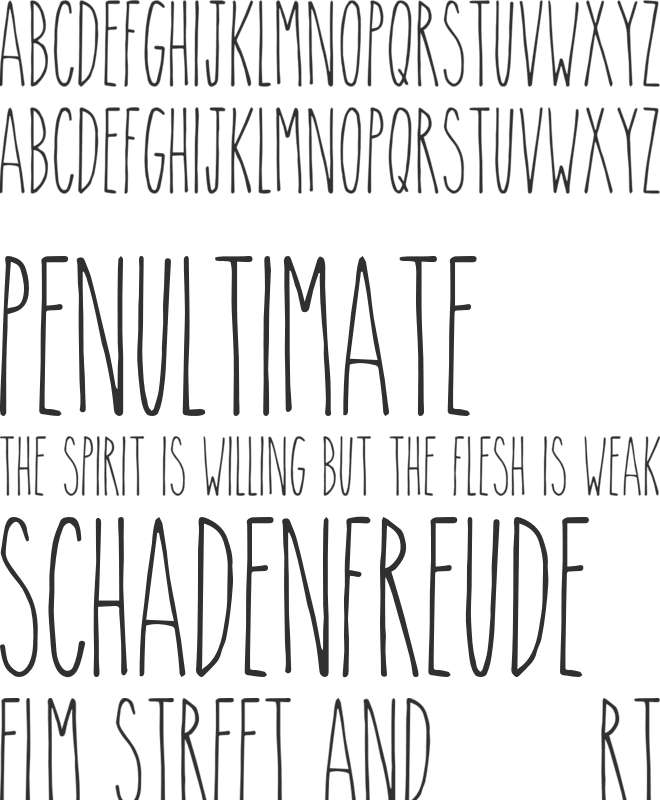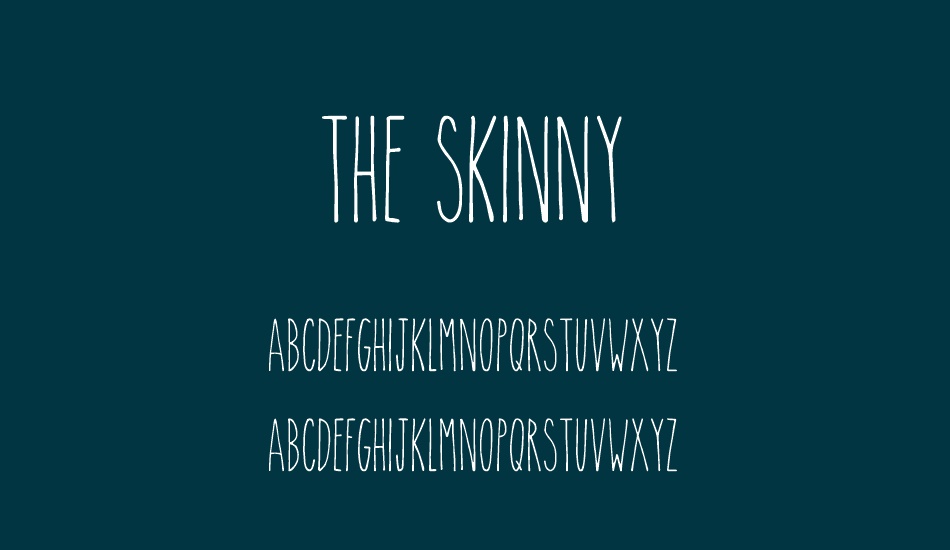
The Skinny Font
The Skinny Font - Otf, ttf & web font files included. The skinny is a sleek and simple handwritten font. Web the skinny by jusebox. This font will provide a casual. Otf, ttf & web font files included. Web the skinny font is a thin, tall, warm, and friendly handwriting typeface with a simple structure and low contrast.
This font will provide a casual. Web the skinny font is a thin, tall, warm, and friendly handwriting typeface with a simple structure and low contrast. Web the skinny is a sleek and simple handwritten font. Otf, ttf & web font files included. The skinny is a sleek and simple handwritten font. Web the skinny by jusebox.
Web the skinny is a sleek and simple handwritten font. Otf, ttf & web font files included. Web the skinny by jusebox. The skinny is a sleek and simple handwritten font. This font will provide a casual. Otf, ttf & web font files included. Web the skinny font is a thin, tall, warm, and friendly handwriting typeface with a simple structure and low contrast.
This font will provide a casual. Web the skinny font is a thin, tall, warm, and friendly handwriting typeface with a simple structure and low contrast. Web the skinny is a sleek and simple handwritten font. Otf, ttf & web font files included. Web the skinny by jusebox.
Otf, ttf & web font files included. Web the skinny font is a thin, tall, warm, and friendly handwriting typeface with a simple structure and low contrast. Web the skinny is a sleek and simple handwritten font. Web the skinny by jusebox. The skinny is a sleek and simple handwritten font.
Web the skinny is a sleek and simple handwritten font. This font will provide a casual. Otf, ttf & web font files included. Web the skinny by jusebox. Web the skinny font is a thin, tall, warm, and friendly handwriting typeface with a simple structure and low contrast.
Web the skinny font is a thin, tall, warm, and friendly handwriting typeface with a simple structure and low contrast. Web the skinny is a sleek and simple handwritten font. This font will provide a casual. Web the skinny by jusebox. The skinny is a sleek and simple handwritten font.
This font will provide a casual. Web the skinny font is a thin, tall, warm, and friendly handwriting typeface with a simple structure and low contrast. Otf, ttf & web font files included. Web the skinny by jusebox. Web the skinny is a sleek and simple handwritten font.
Web the skinny font is a thin, tall, warm, and friendly handwriting typeface with a simple structure and low contrast. Web the skinny by jusebox. Web the skinny is a sleek and simple handwritten font. The skinny is a sleek and simple handwritten font. Otf, ttf & web font files included.
Web the skinny by jusebox. The skinny is a sleek and simple handwritten font. Web the skinny is a sleek and simple handwritten font. Otf, ttf & web font files included. Otf, ttf & web font files included.
Otf, ttf & web font files included. Web the skinny is a sleek and simple handwritten font. This font will provide a casual. The skinny is a sleek and simple handwritten font. Web the skinny font is a thin, tall, warm, and friendly handwriting typeface with a simple structure and low contrast.
Otf, ttf & web font files included. The skinny is a sleek and simple handwritten font. Otf, ttf & web font files included. Web the skinny is a sleek and simple handwritten font. Web the skinny font is a thin, tall, warm, and friendly handwriting typeface with a simple structure and low contrast.
This Font Will Provide A Casual.
Otf, ttf & web font files included. Web the skinny by jusebox. Web the skinny is a sleek and simple handwritten font. Web the skinny font is a thin, tall, warm, and friendly handwriting typeface with a simple structure and low contrast.
The Skinny Is A Sleek And Simple Handwritten Font.